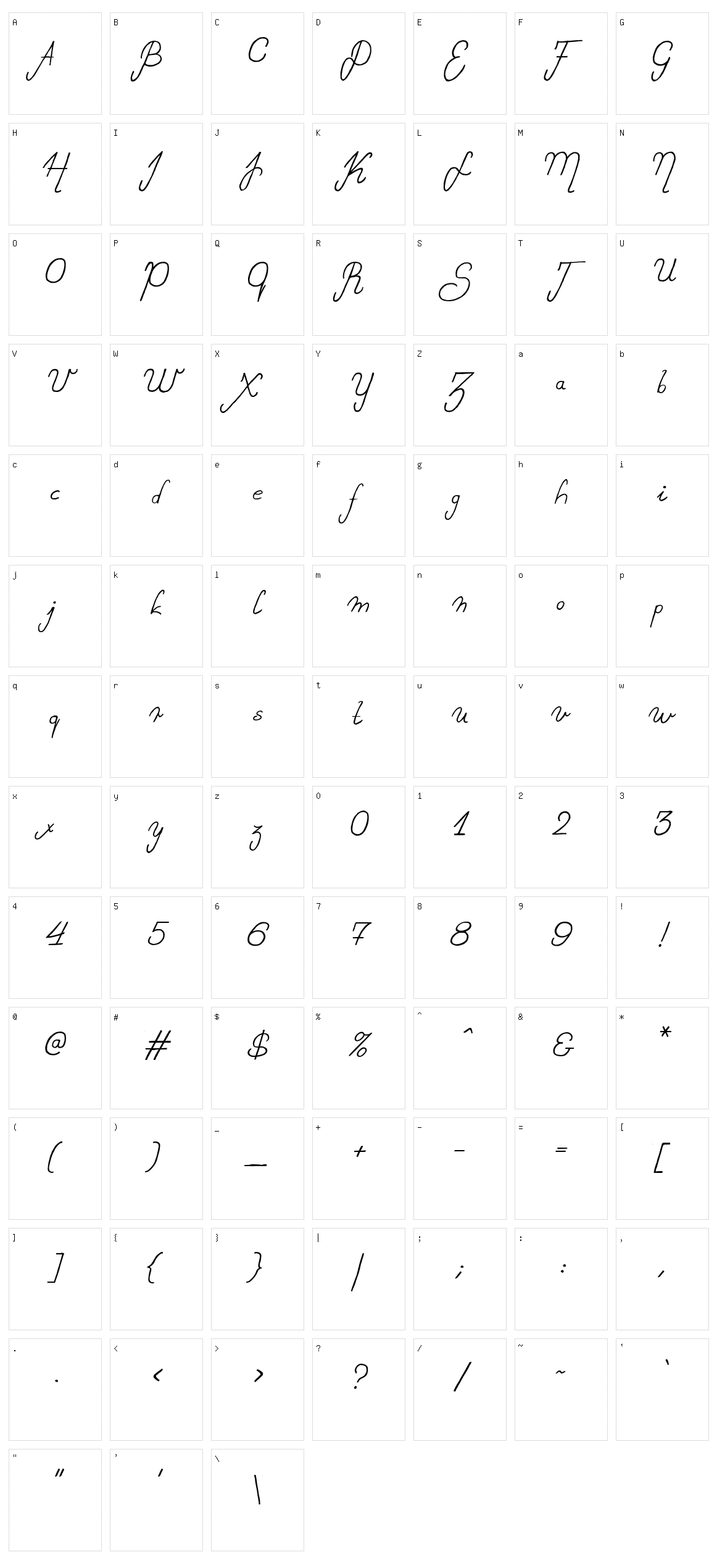
The free font Sweet Lady is carefully designed by Magique Fonts, showcasing a thoughtful balance of creativity and usability and falls under the Script font style. When you download the ZIP file, it contains only 28.68 KB of font files, making it lightweight and quick to download. Please review the license details below to understand permitted usage and distribution rights. If license information is not available, we recommend using this font for personal projects only or contacting the author directly for commercial usage permissions.